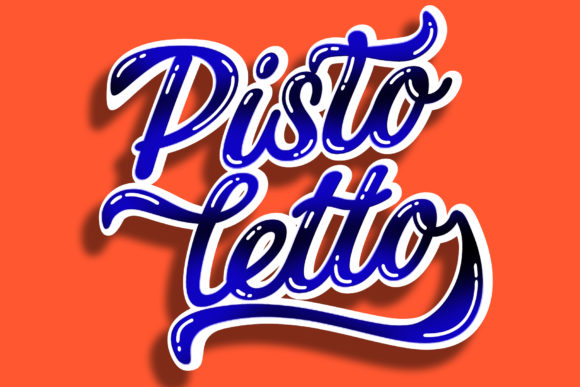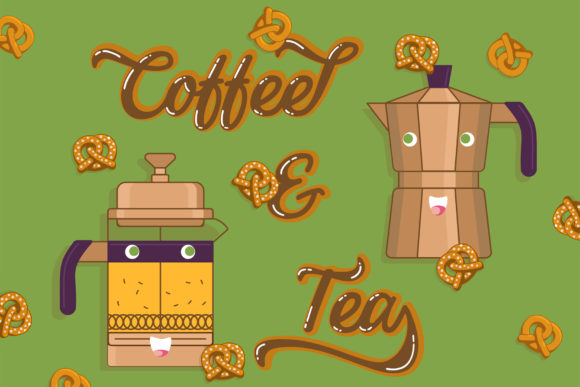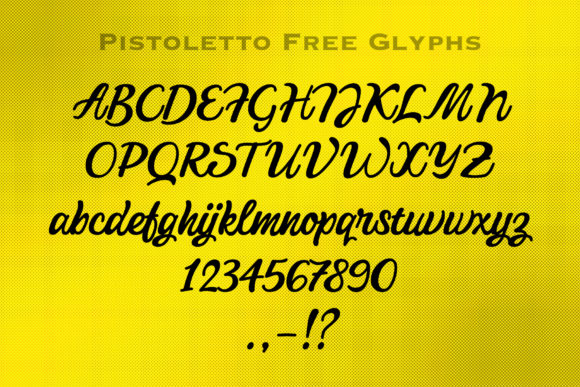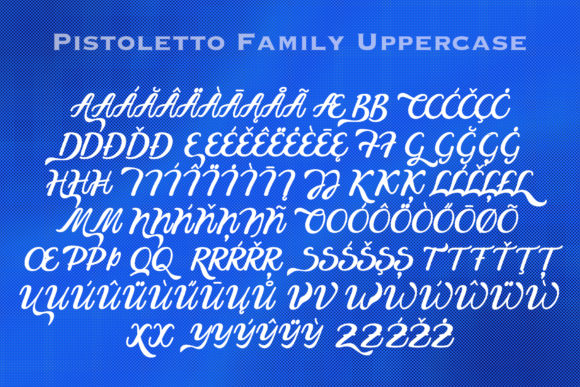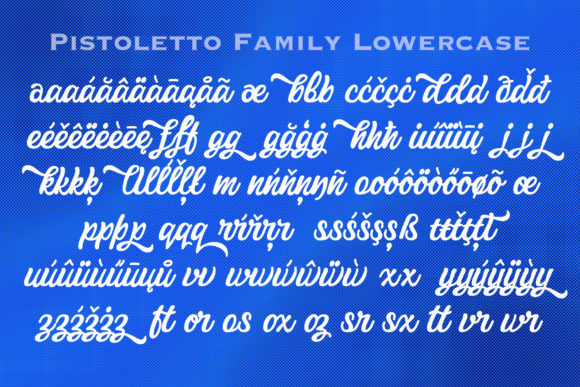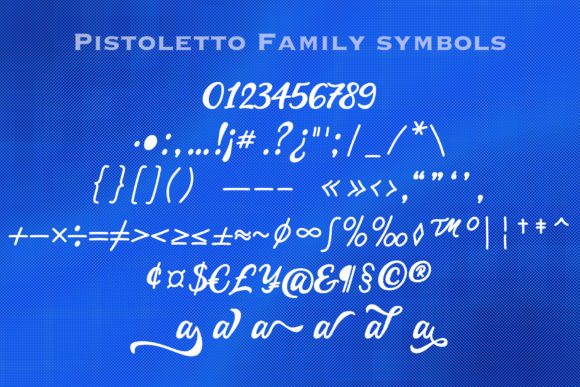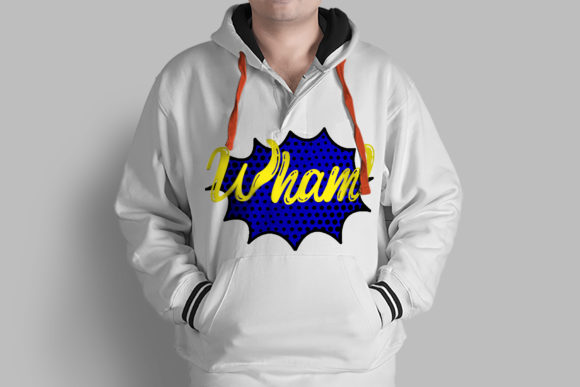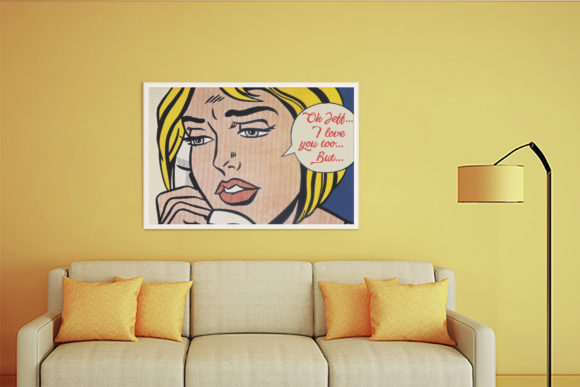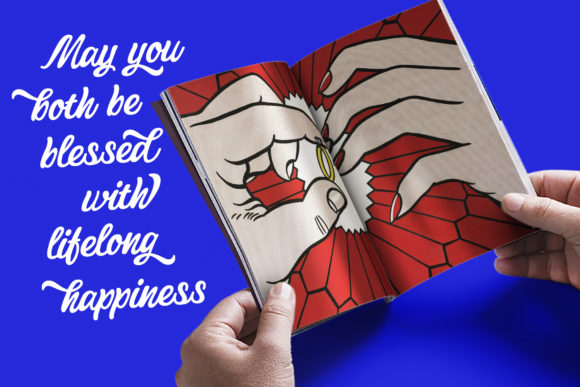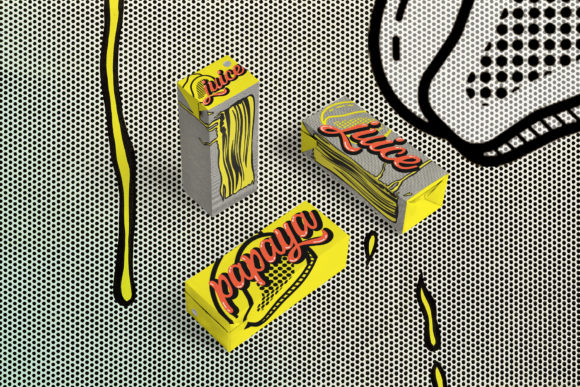
Pistoletto Font
About Pistoletto Font
The Pistoletto stands out as a striking script font, distinguished by its exceptional readability and the ability to infuse a unique touch into every design it graces. This font is designed to make a bold statement, offering a perfect balance between eye-catching aesthetics and clear legibility.
One of the key features of The Pistoletto is its striking and distinctive script style. Each character is crafted with precision, capturing attention and commanding a visual presence. Despite its bold nature, the font maintains excellent readability, making it a versatile choice for a variety of design applications.
The readability of The Pistoletto is a crucial factor that contributes to its effectiveness in different contexts. Whether used in headlines, logos, branding materials, or any other design project, the font ensures that the message is communicated with clarity while adding a touch of uniqueness that sets it apart.
In addition to its visual impact, The Pistoletto’s unique touch enhances the overall aesthetic of designs. The script style carries a sense of personality and character, making it suitable for projects where a memorable and distinctive typographic identity is desired.
In summary, The Pistoletto is more than just a script font; it’s a design asset that combines striking aesthetics with excellent readability. Its unique touch adds a layer of distinction to every design, making it an ideal choice for designers seeking a font that not only captures attention but also communicates with clarity and style.